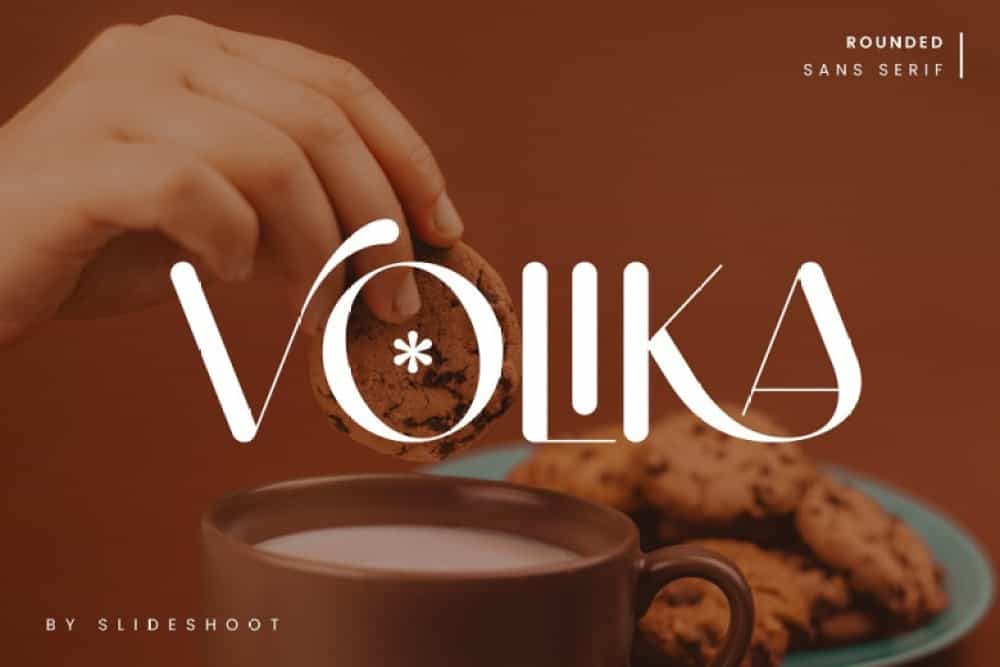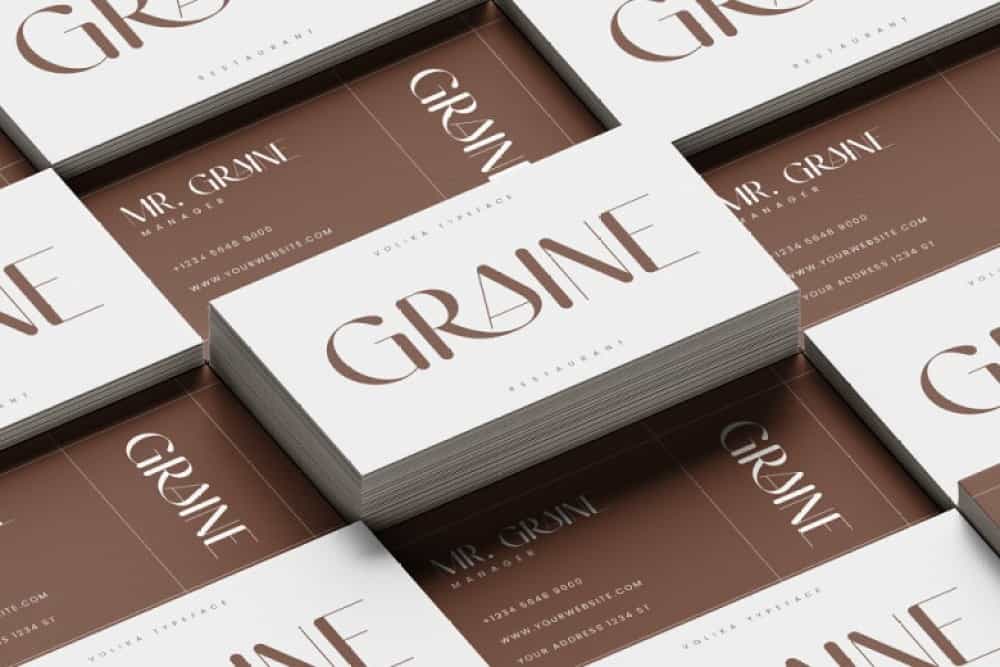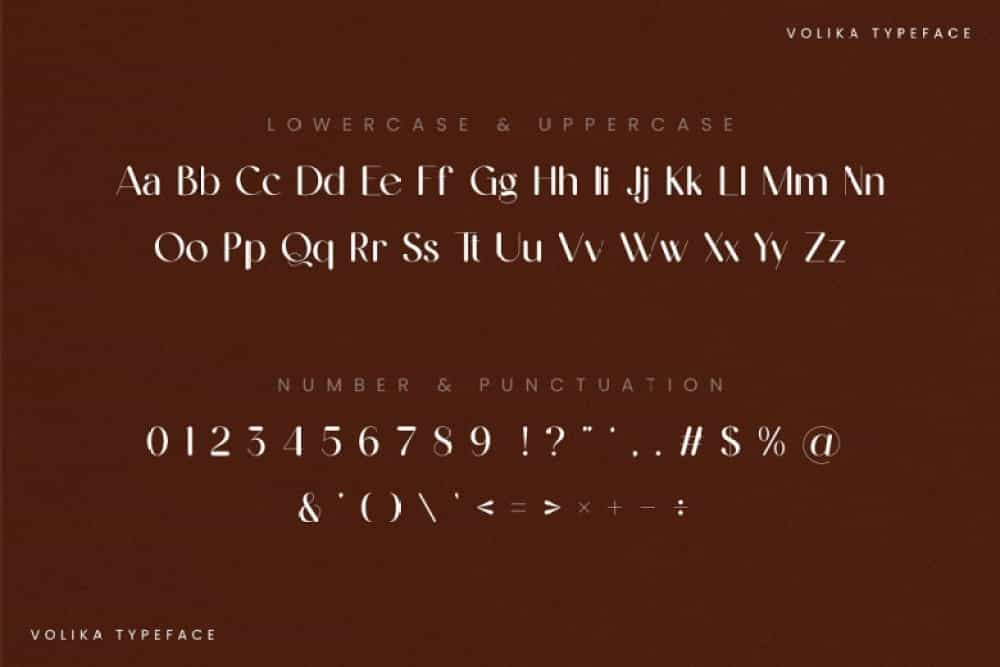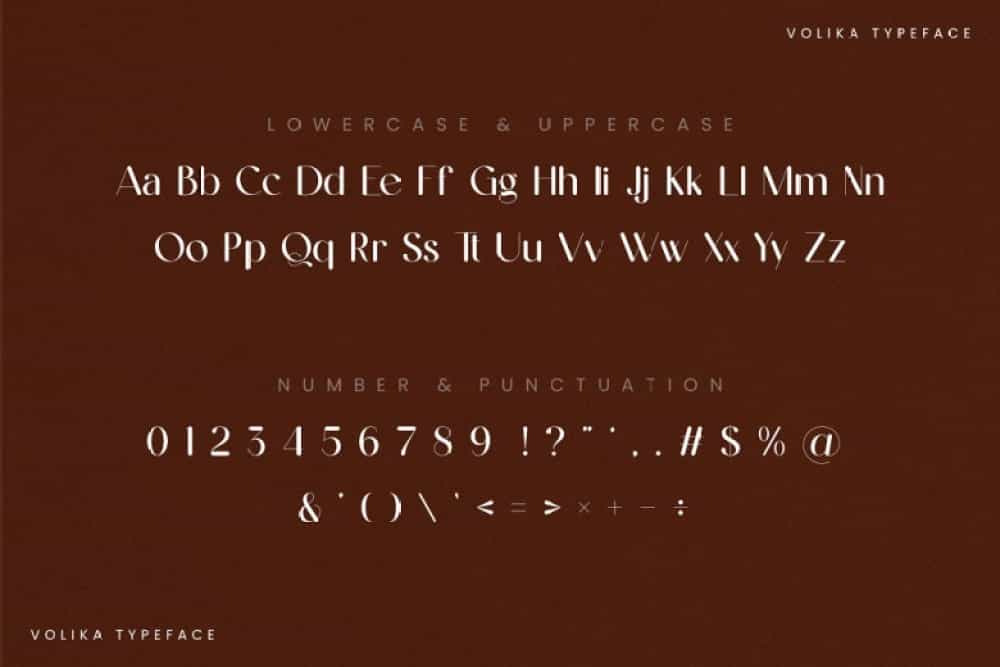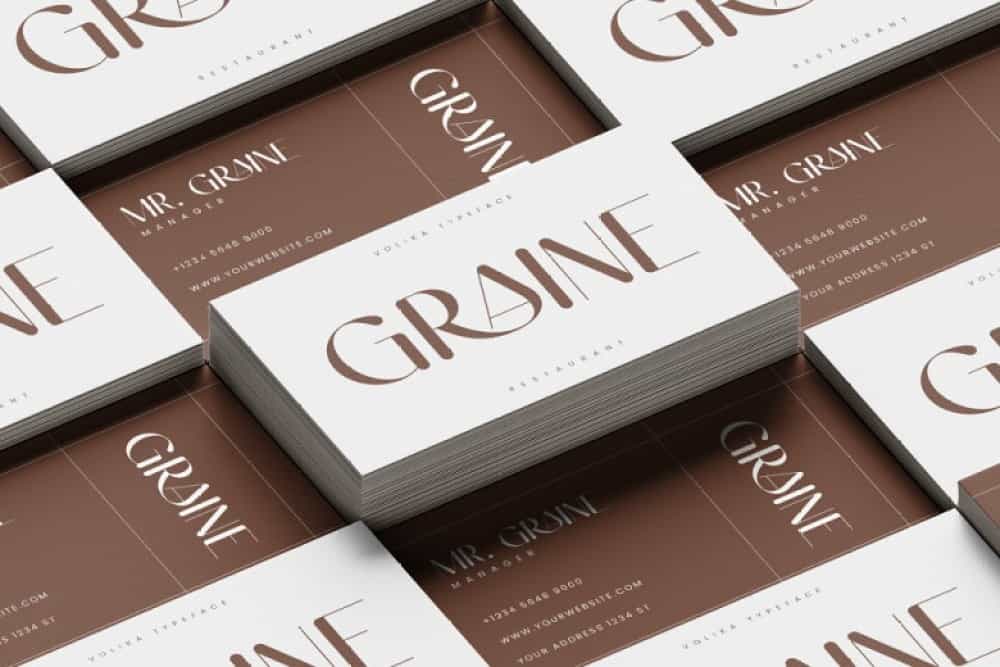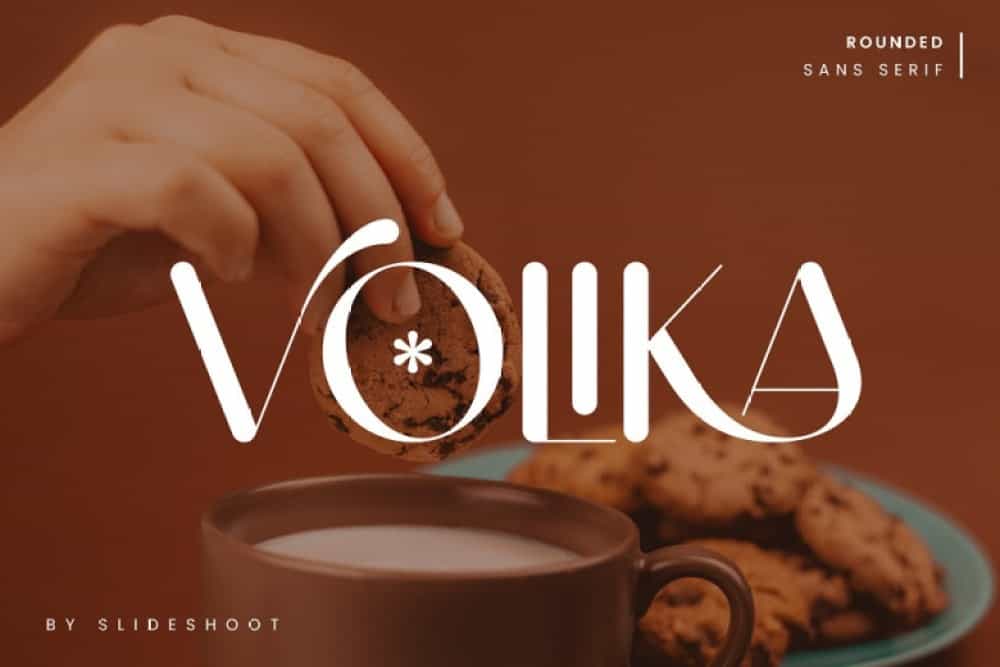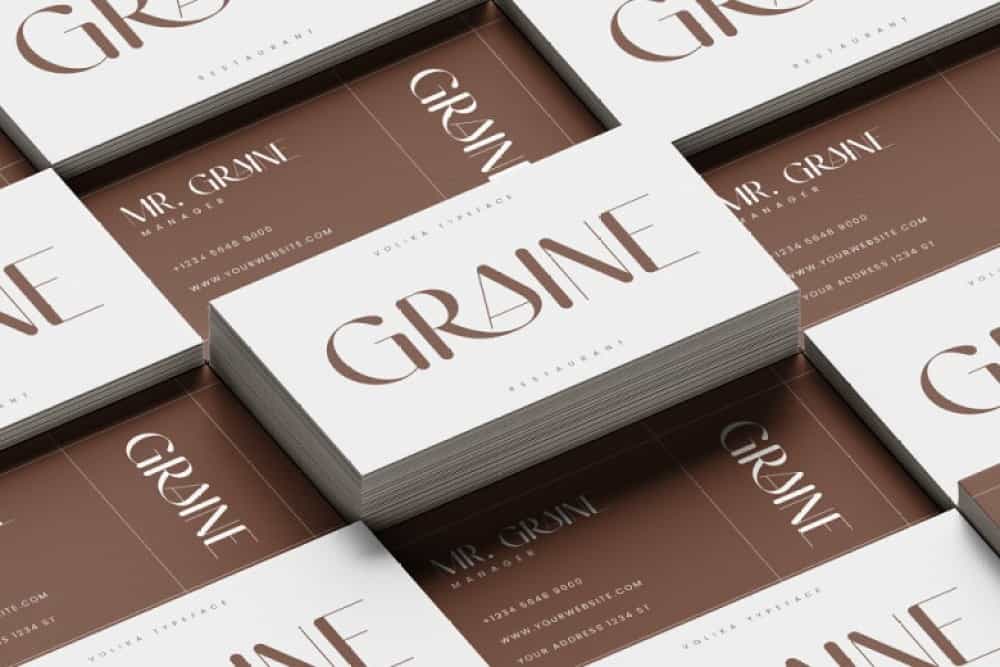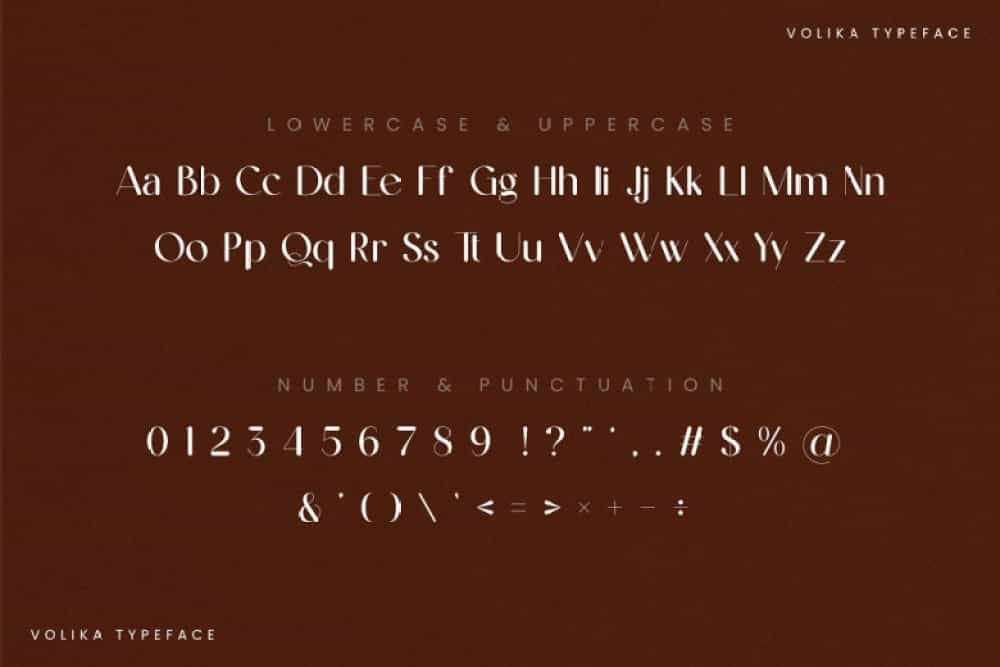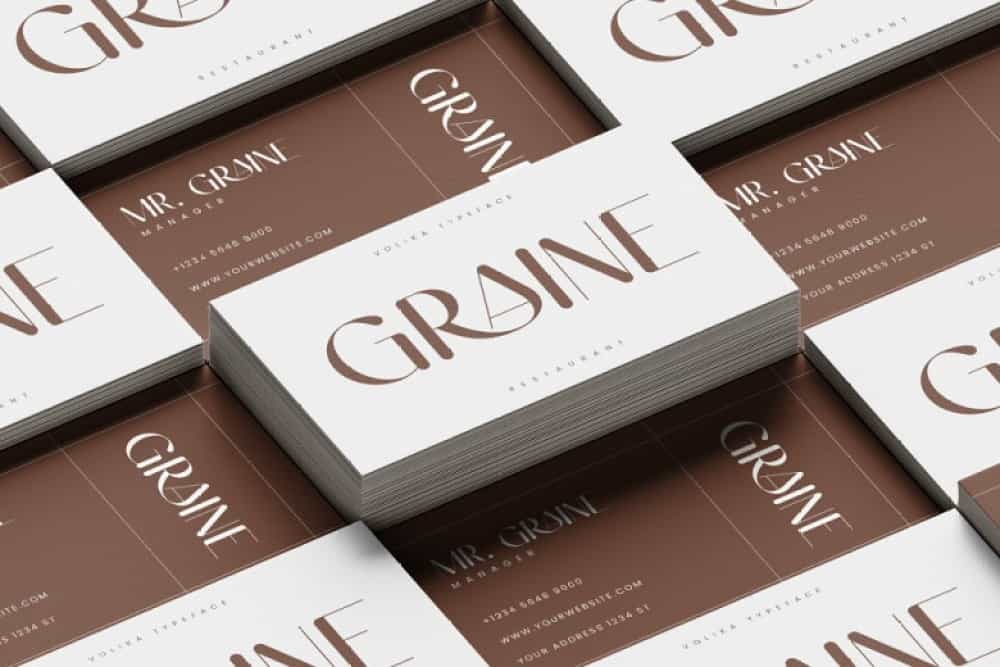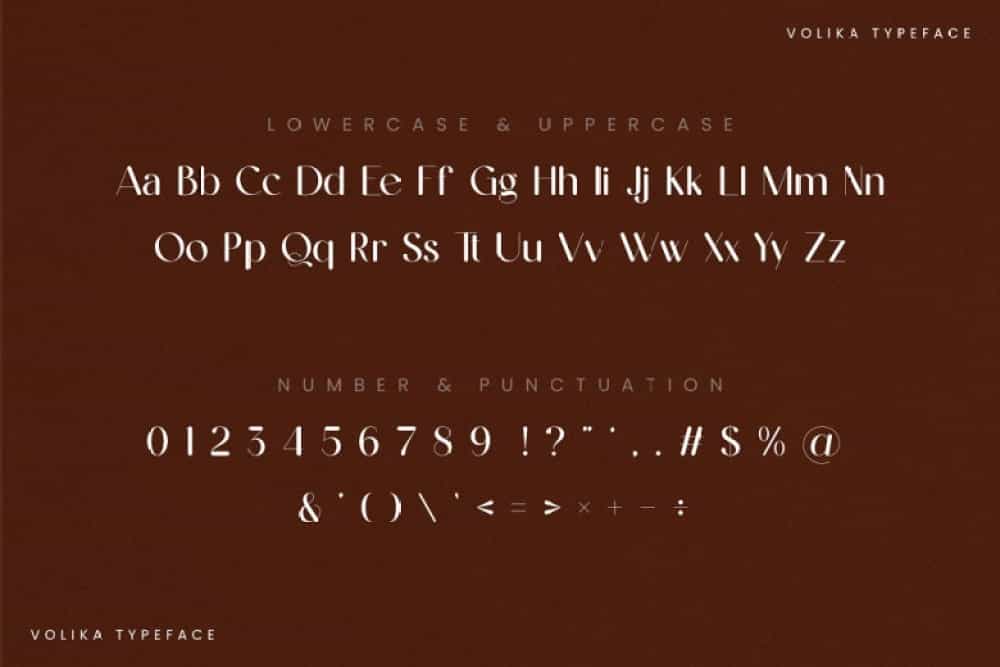
Volika Font
Volika is a font that is equally harmony, grace, sophistication, and style which belongs to the sans serif type of fonts. This is a beautiful character you have. It complements card designs, logos of companies, names of films, names of movies, cards of companies, titles of books, names of brands, and many other designs.